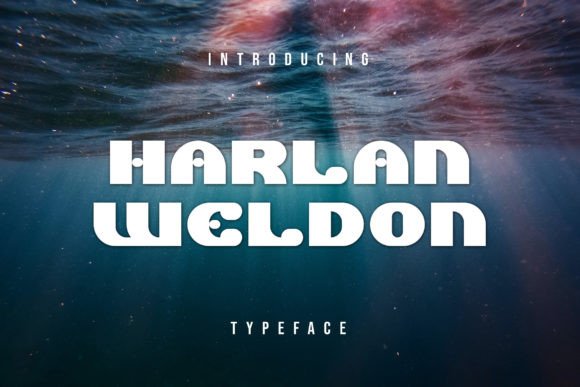
Unleash the Power of Expression with Harlan Weldon: The Ultimate Font for Playful, Quirky, and Engaging Designs!
Welcome to the world of Harlan Weldon, a captivating display font that's brimming with personality, charm, and boundless creative possibilities! At first glance, you'll be mesmerized by its playful and quirky character, a delightful departure from the ordinary. But as you explore its depths, you'll discover a versatile font that can elevate your designs to new heights of visual excellence, making it the perfect choice for a wide spectrum of projects!
Harlan Weldon's skillful craftsmanship is evident in its remarkable ability to effortlessly enhance the impact of your small type designs. Whether you're crafting eye-catching headlines, captivating social media posts, or creating stunning logos that demand attention, this font will elevate your words, turning them into unforgettable visual statements. Its meticulously crafted curves and distinct character ensure that every letter carries weight and personality, leaving a lasting impression on your audience.
With Harlan Weldon as your design companion, you'll embark on a creative journey filled with endless opportunities. Its adaptability shines through in its seamless integration with a diverse range of design styles and themes. From whimsical and lighthearted projects to serious and sophisticated endeavors, Harlan Weldon effortlessly adapts to your vision, allowing you to express your ideas with unwavering authenticity and impact.
Experience the transformative power of Harlan Weldon and witness how its playful charm captivates your audience, leaving them intrigued and eager to engage with your designs. Its unique character will breathe life into your projects, adding a touch of delight and whimsy that sets you apart from the mundane. Dare to embrace the unconventional and let Harlan Weldon take your designs to extraordinary heights!